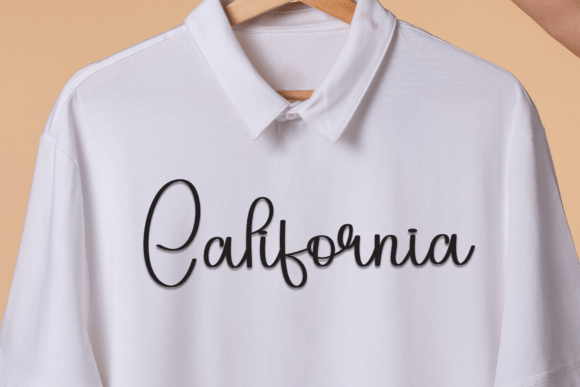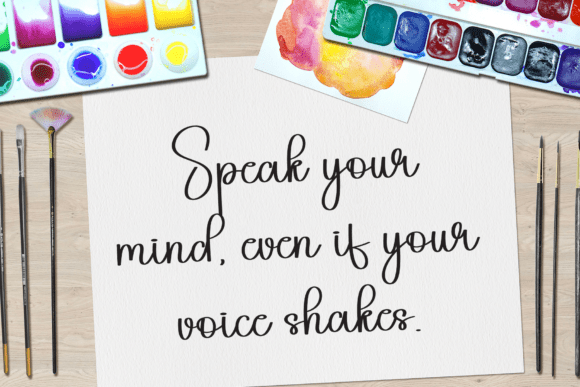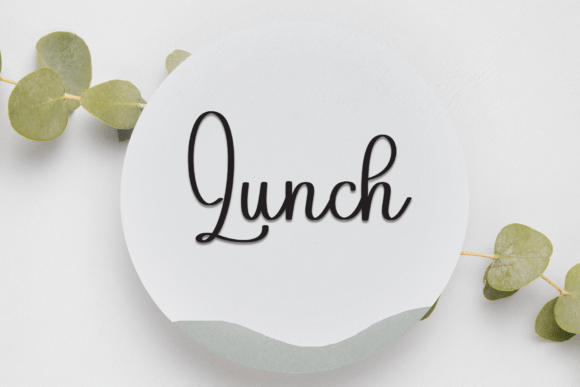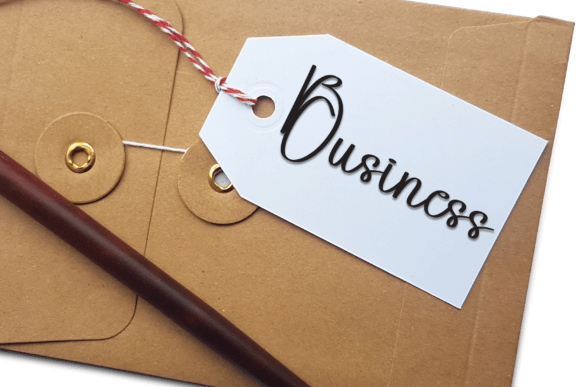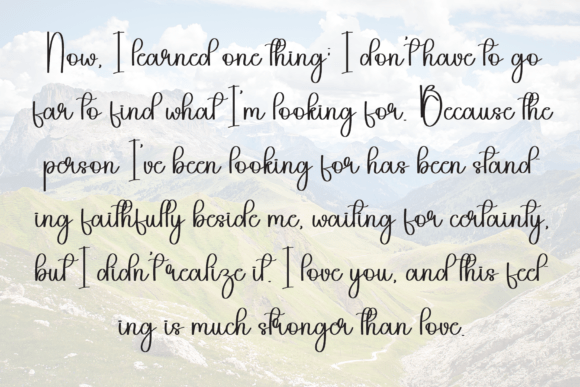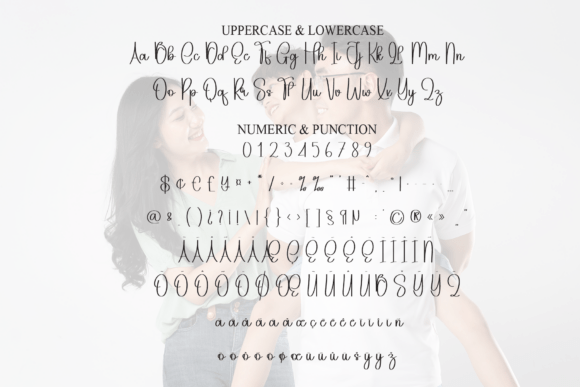
Introducing Family Font: The Charming Handwritten Display Font for Your Creative Projects
Are you looking for a font that can add a personal touch to your designs and make them stand out? Look no further than Family Font, a charming and approachable handwritten display font that’s perfect for a wide range of creative projects. With its adorably delightful design, this font is sure to bring a sprinkle of sweetness to your typography needs.
What Makes Family Font Special?
Family Font is more than just a font – it’s a way to add a sense of love and fun to your designs. Its playful and whimsical design makes it perfect for crafting wedding invitations, heartfelt greeting cards, or any design endeavor that needs a touch of personality. Whether you’re a designer, crafter, or DIY enthusiast, Family Font is the perfect match for your creative projects.
Family Font is a versatile font that can be used for a wide range of design applications, including:
- DIY projects and crafts
Why Choose Family Font?
There are many reasons why Family Font is the perfect choice for your design needs. Here are just a few:
- Unique and playful design: Family Font has a one-of-a-kind design that’s sure to make your designs stand out.
- Easy to read: Despite its playful design, Family Font is easy to read and understand, making it perfect for body text and headlines.
- Highly versatile: Family Font can be used for a wide range of design applications, from formal to informal.
- Infused with love and fun: Family Font is designed to add a personal touch to your designs, making them more relatable and engaging.
How to Use Family Font in Your Designs
Using Family Font in your designs is easy. Here are a few tips to get you started:
- Pair it with other fonts: Family Font pairs well with other fonts, including serif and sans-serif fonts.
- Experiment with different sizes: Family Font looks great in a variety of sizes, from large headlines to smaller body text.
- Add a personal touch: Use Family Font to add a personal touch to your designs, such as in a handwritten note or signature.
Key Features of Family Font
| Font Style | Handwritten display font |
| Design | Adorably delightful design with a playful and whimsical feel |
| Use Cases | Wedding invitations, greeting cards, social media graphics, blog and website headers, branding and packaging design, DIY projects and crafts |
Overall, Family Font is a versatile and charming font that’s perfect for a wide range of design applications. Its unique and playful design makes it a great choice for designers and crafters looking to add a personal touch to their projects.